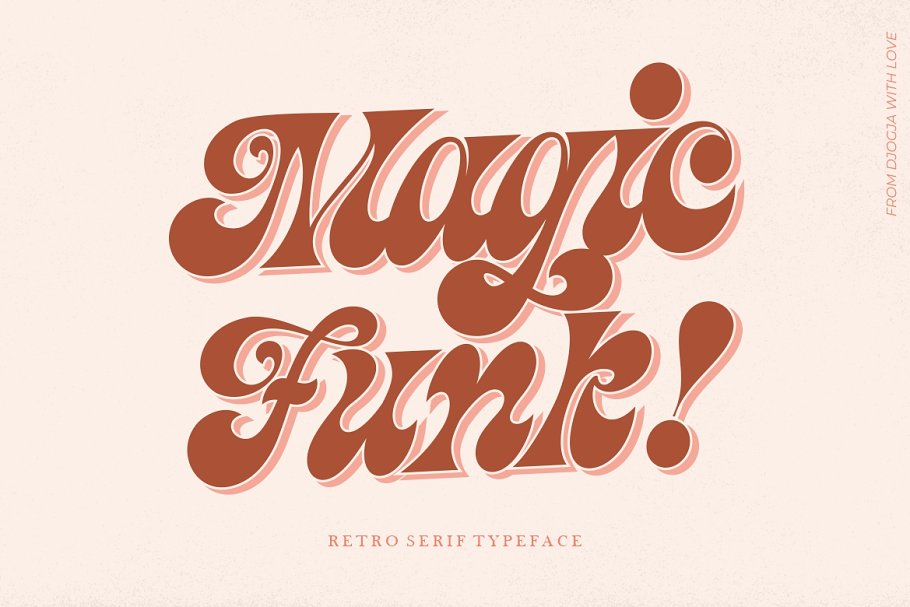
Introducing Magic Funk, the retro serif typeface created by Burhan Afif that's perfect for anyone looking for the best fonts for clean design. With its unique display and many ligatures and alternates, you can create amazing and beautiful projects that will leave your audience in awe.
Magic Funk is ideal for those who love all things vintage, retro, and old-school. The font comes with a full set of uppercase and lowercase letters, numbers, and punctuation, as well as standard multilingual support. This means you can use it for any project, no matter the language.
But that's not all. Magic Funk also comes with both masculine and feminine qualities, making it perfect for fashion-related branding and editorial design. Its elegant and eye-catching design will take your projects to the next level, leaving a lasting impression on your audience.